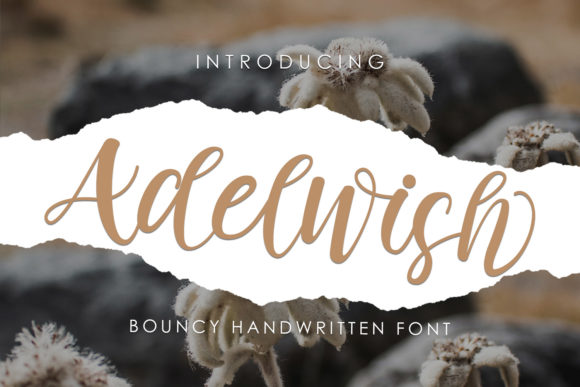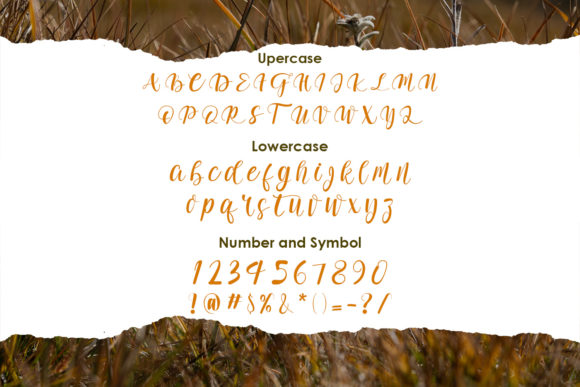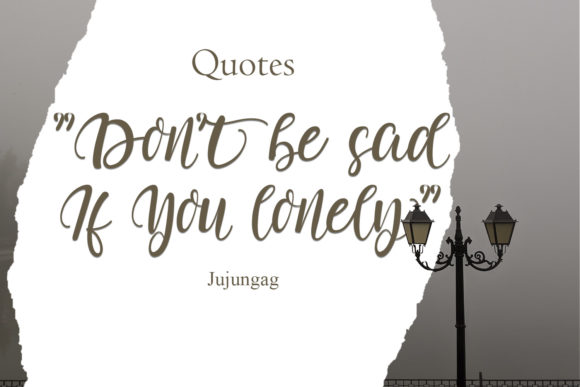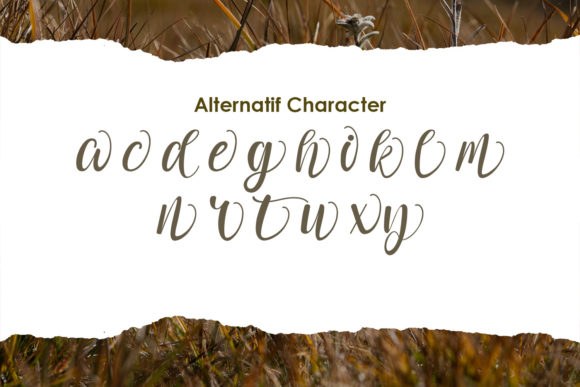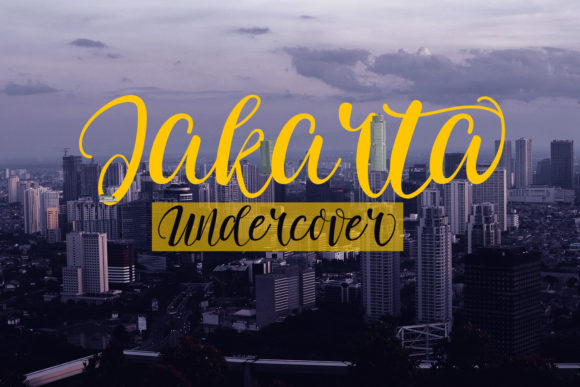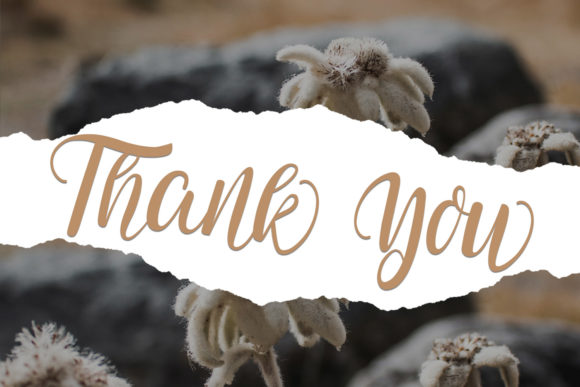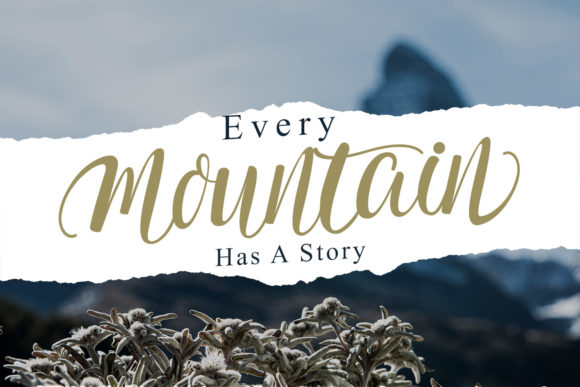
Adelwish Font
About Adelwish Font
Adelwish is a cute and casual handwritten font with an incredibly friendly feel. Whether you’re looking for fonts for Instagram or calligraphy scripts for DIY projects, Adelwish will turn any creative idea into a true piece of art!